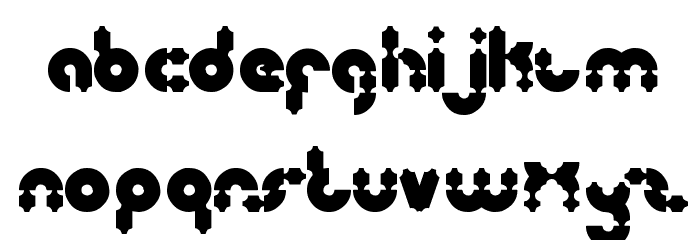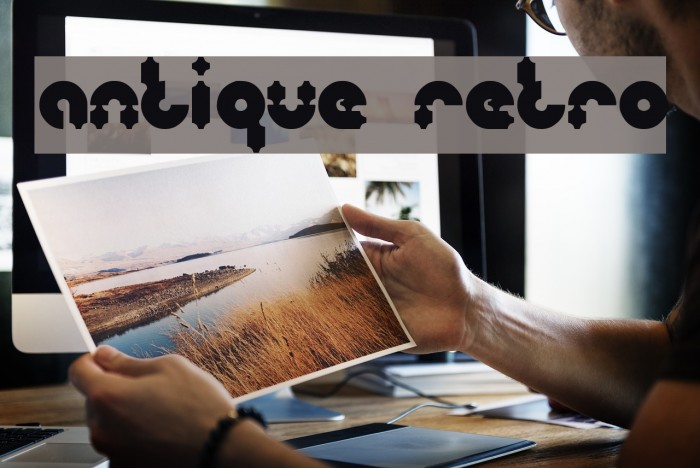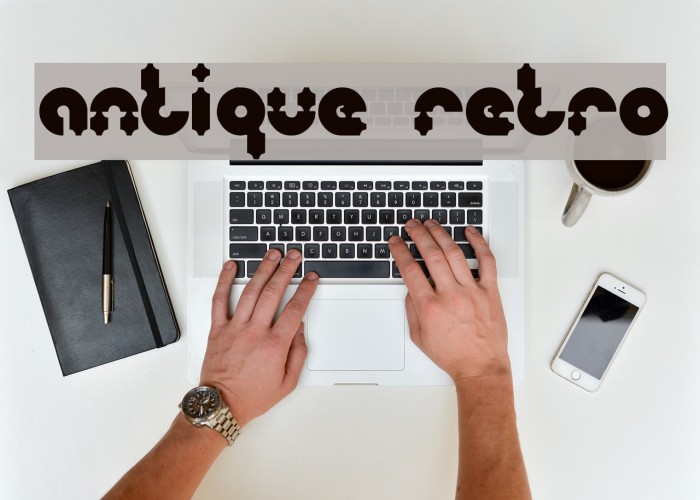
antique retro Font
This font features a bold and decorative style with a retro flair. The characters are uniquely designed with intricate cut-out patterns that give it a distinct, vintage appearance. The uppercase letters are bold and commanding, while the lowercase letters maintain a consistent style with slightly rounded edges. The numbers and special characters follow the same decorative theme, making the font cohesive and visually striking. The overall design is reminiscent of old signage or posters, making it ideal for projects that require a touch of nostalgia and creativity.
A bold, decorative font with a retro, vintage style featuring intricate cut-out patterns.
- Proposed Projects: Ideal for retro-themed posters, vintage branding, creative invitations, and decorative signage.
- Overall Style: Vintage